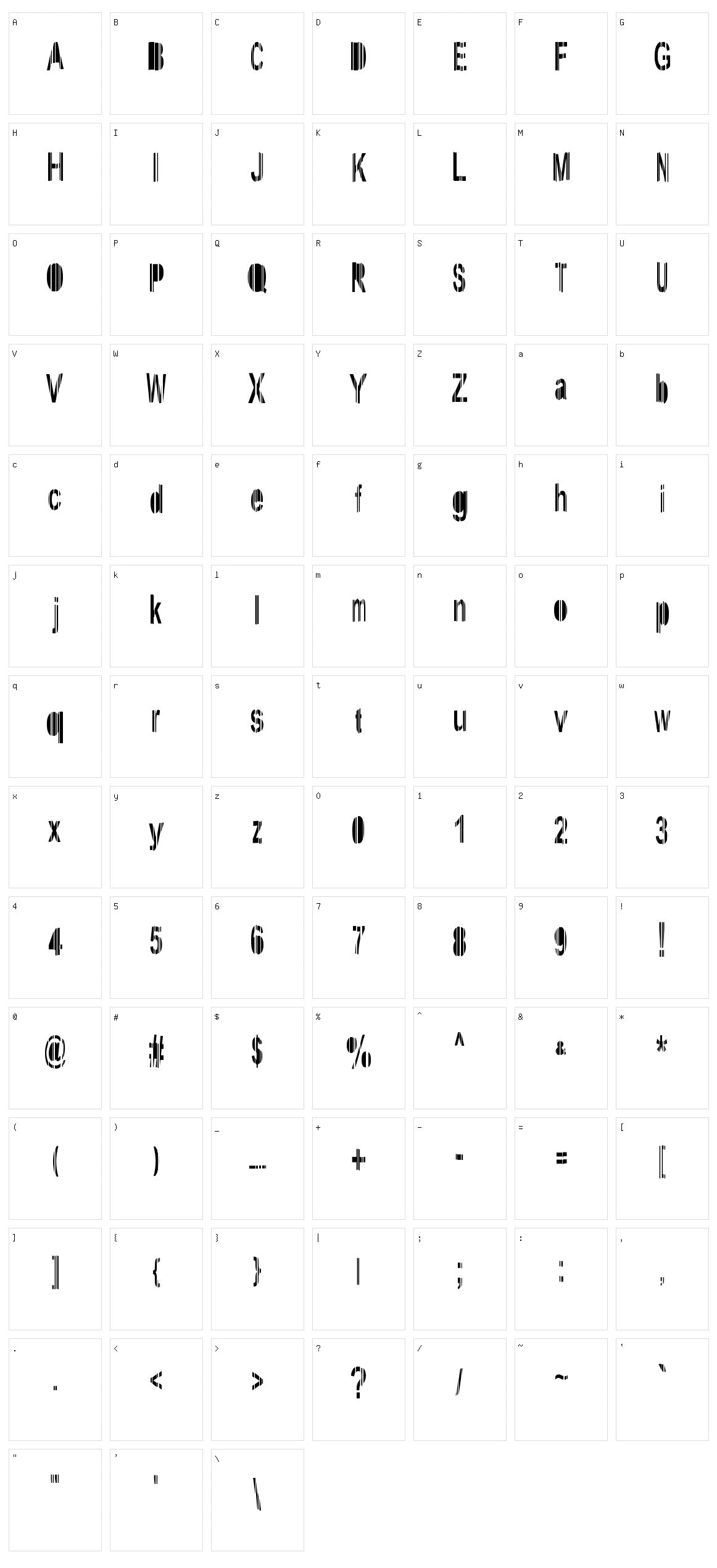
The free font System is carefully designed by Adrián Flores, showcasing a thoughtful balance of creativity and usability and falls under the Distorted font style. When you download the ZIP file, it contains only 21.75 KB of font files, making it lightweight and quick to download. Please review the license details below to understand permitted usage and distribution rights. If license information is not available, we recommend using this font for personal projects only or contacting the author directly for commercial usage permissions.